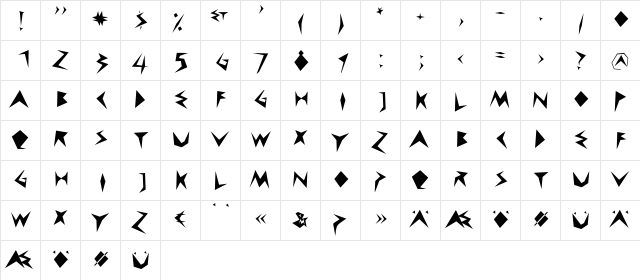
CuneyChars Regular
Design Context for CuneyChars Typeface
CuneyChars is a composed and adaptable typeface that performs quietly and consistently across a wide range of design contexts.